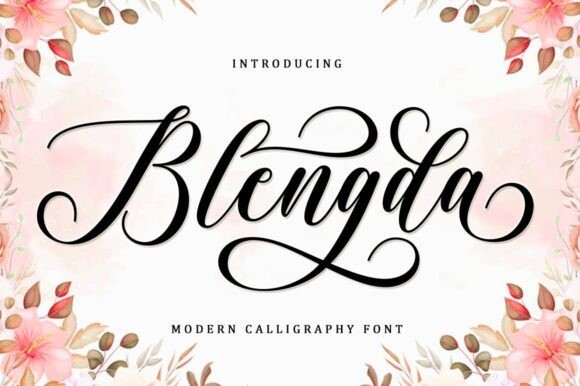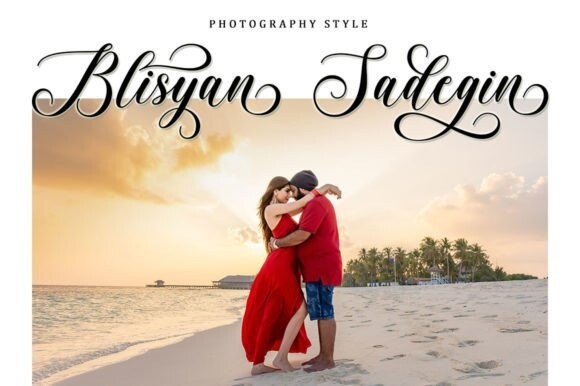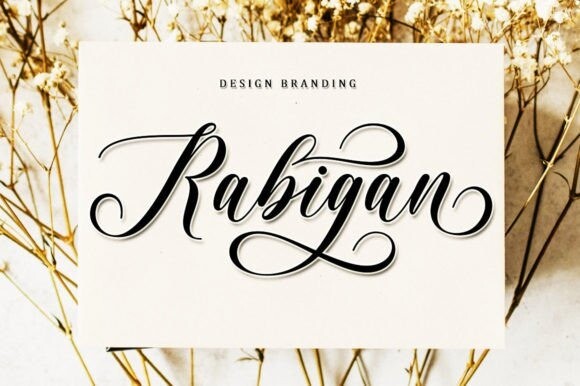
Blengda Font
Blengda Script is one of the Modern Calligraphy script fonts that comes with very beautiful character changes, a type of classic copper decorative script with a modern touch, designed with high detail to present an elegant style.